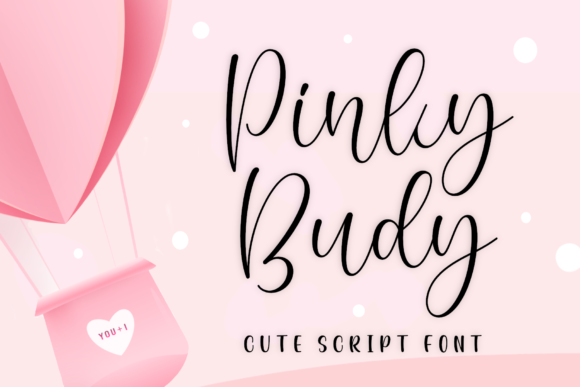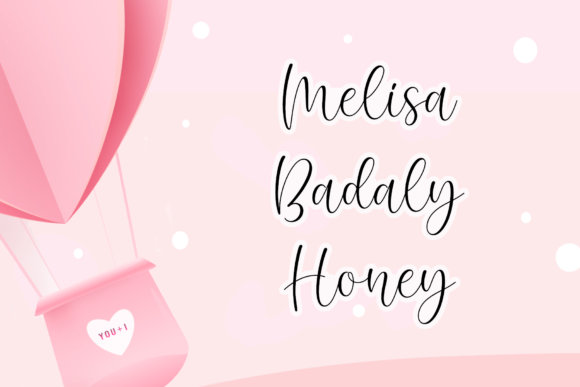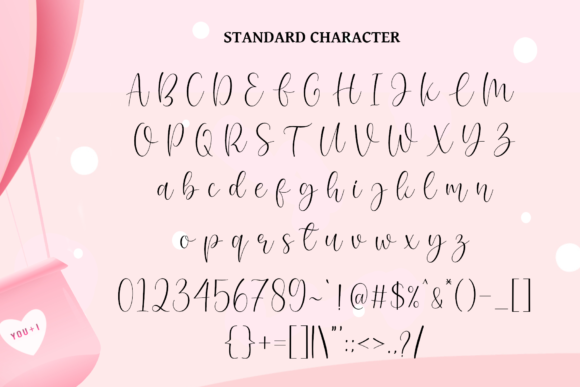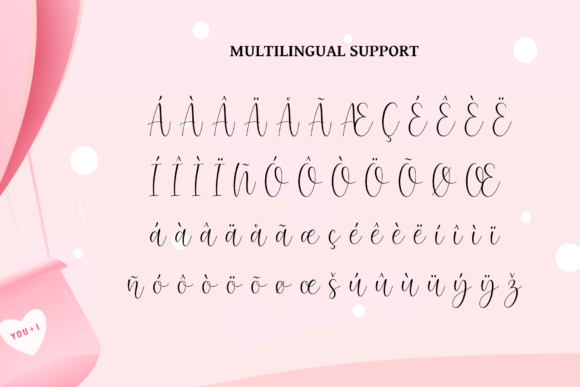
Pinky Budy Font
About Pinky Budy Font
Pinky Budy is an adorable and charming script font that brings a playful and delightful touch to your design projects. With its semi-curly style and delicate details, this font is perfect for adding a cute and whimsical feel to a variety of creative works.
The unique character of Pinky Budy lies in its curly design, which adds a sense of liveliness and fun to your designs. The playful curves and loops of the letters create a sense of movement and energy, making this font ideal for projects that aim to capture attention and evoke a lighthearted atmosphere.
Whether you’re creating cute flyers, animated graphics, posters, birthday cards, books, mugs, or any other design piece, Pinky Budy brings a touch of cuteness and charm to your compositions. Its versatility allows it to be used in a wide range of contexts, from children’s illustrations and branding for playful products to social media graphics and personal crafts.
The delicate touch of Pinky Budy adds an endearing quality to the font. The thin strokes and intricate details give it a dainty and refined appearance, further enhancing its cuteness. The font’s overall design creates a sense of whimsy and innocence, making it a great choice for projects aimed at a younger audience or those that want to evoke a sense of nostalgia and childlike wonder.
With Pinky Budy, you have the flexibility to explore various design possibilities. Experiment with different colors, sizes, and layouts to create eye-catching and memorable compositions. The font’s charming style will instantly draw attention and create a sense of joy and playfulness.
Whether you’re designing greeting cards for a special occasion, illustrating a children’s book, or creating animated graphics for social media, Pinky Budy brings a delightful and cute element to your designs. Its semi-curly style and delicate details make it a versatile choice for a wide range of design projects.
Embrace the cuteness and playfulness of Pinky Budy and let it add a touch of whimsy to your creations. Its unique design and delicate details will make your design projects stand out and bring a smile to the faces of your audience.